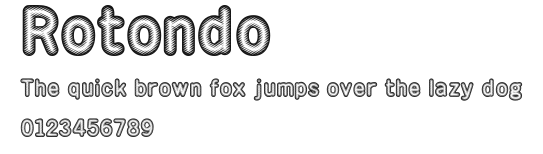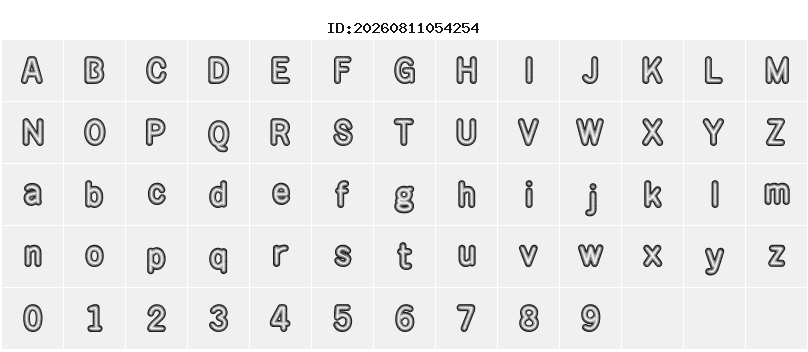
Rotondo Preview
• Font Name: Rotondo
• Font Style: Silver
• Full Font Name: Rotondo Silver
About Rotondo.ttf
Rotondo.ttf is a modern, elegant sans-serif font designed for ultimate readability and visual harmony. Perfect for branding, headlines, web design, and print materials.